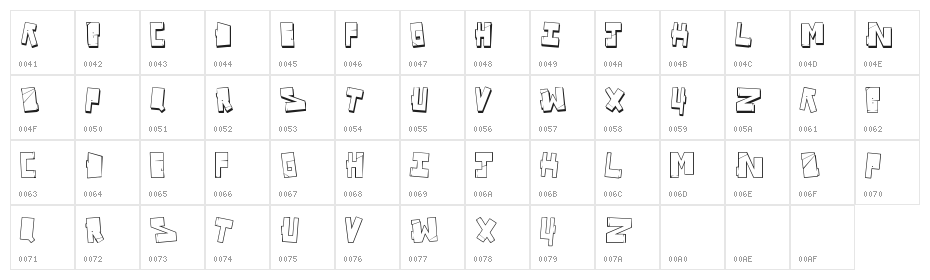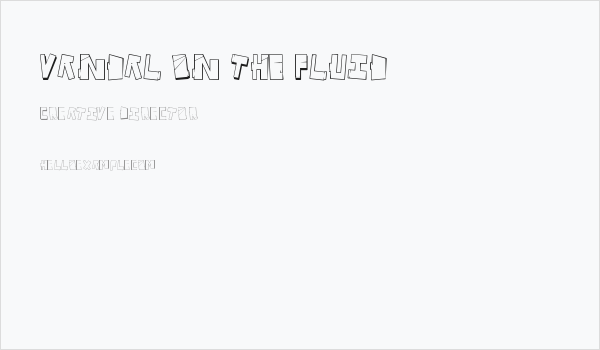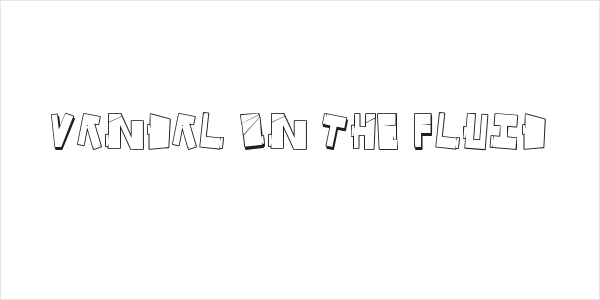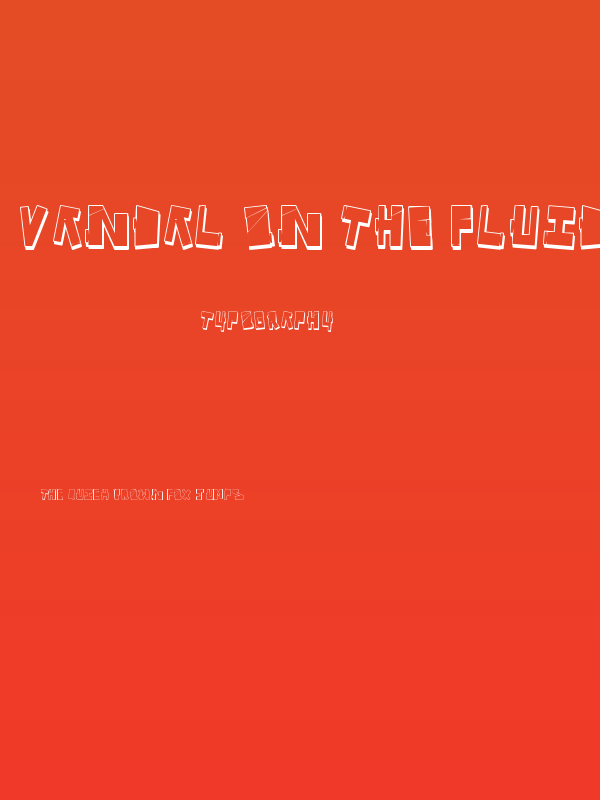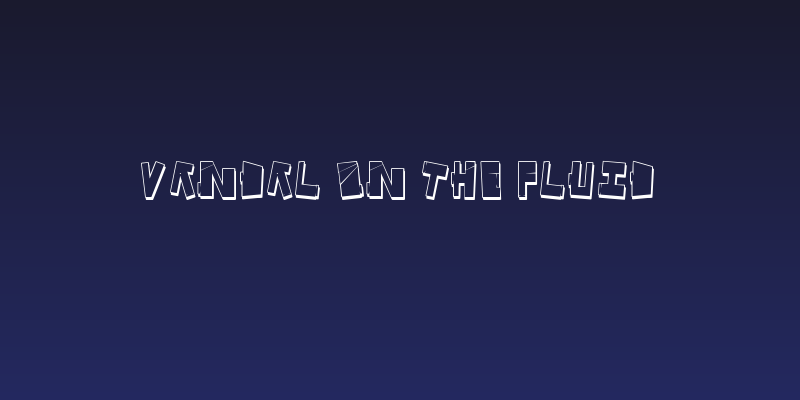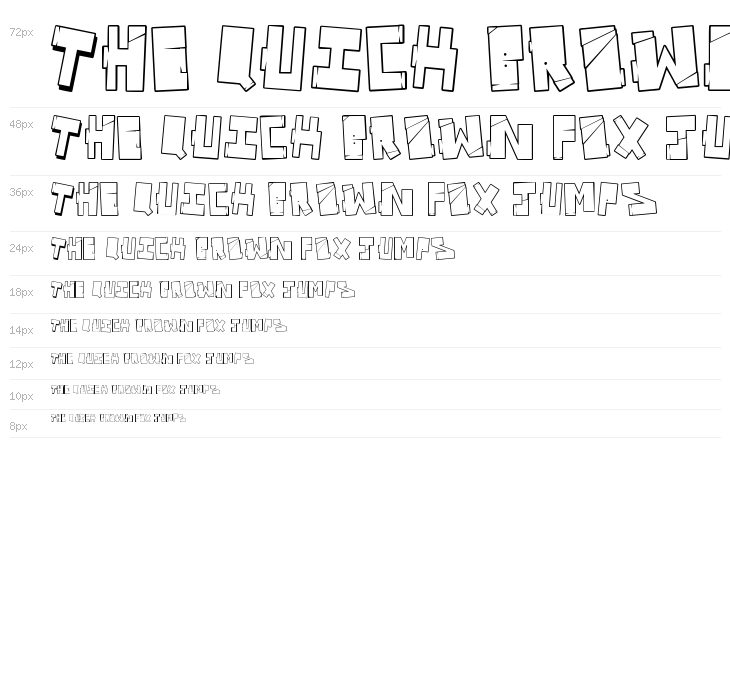
Vandal On The Fluid Font
Vandal On The Fluid Description
This font features a bold, graffiti-inspired style with a three-dimensional effect. The letters are blocky and angular, giving them a dynamic and edgy appearance. Each character is outlined with a thick black line, creating a strong contrast against the white interior. The design incorporates a sense of movement and energy, reminiscent of street art. The uppercase letters are consistent in height, while the overall style is playful and rebellious, making it ideal for projects that require a bold statement.
| Overall Style | Modern, Urban |
| Proposed Projects | Ideal for urban-themed designs, street art posters, music album covers, and edgy branding projects. |